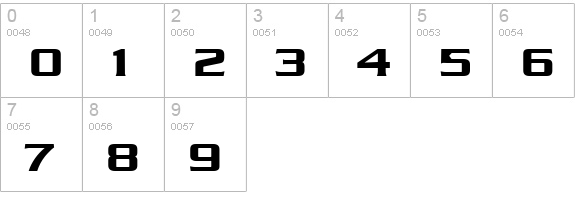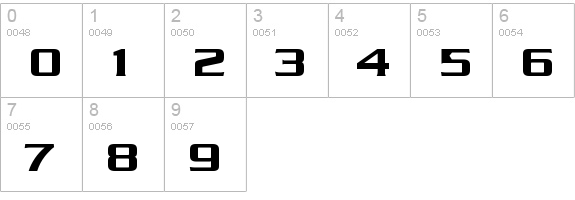
Chaney Wide Bold Font Details
Chaney Wide Bold is a strong, high-contrast, extended-width variant in the Chaney typeface family \xE2\x80\x94 well suited to headlines, attention-grabbing titles, and strong calls-to-action.
Introducing Chaney Wide Bold font – a bold and dynamic typeface designed to make a statement. With its wide proportions and strong, thick lines, Chaney Wide Bold exudes a sense of power and modernity. This versatile font is perfect for headlines, titles, and branding projects that require a strong visual impact. And the best part? Chaney Wide Bold is available for free download at FontsMarket.com. Whether you're a designer looking for a striking typeface to elevate your designs, or simply a typography enthusiast seeking a bold and eye-catching font, Chaney Wide Bold is the perfect choice. Don't miss out on this opportunity to add a touch of boldness to your projects with Chaney Wide Bold font. Download it now and let your creativity shine!